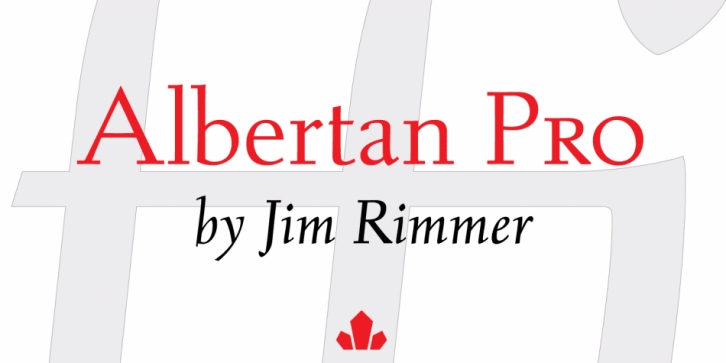
Albertan Pro is a serif and display serif font family. This typeface has fourteen styles and was published by Canada Type.
Albertan was the first Jim Rimmer typeface to make the transition from metal to digital. And for very good reason. When the first roman face was cut at 16 pt. in 1982, it was intended for use in hand-setting limited edition books at Jim’s own Pie Tree Press, but it immediately perked the ears of text typography connoisseurs in the printing industry. It was hard to resist Jim’s expertly balanced approach at transforming the traditional roman model by infusing many transitional traits into the forms without sacrificing the integrity of the calligraphic influence or the functionality of the overall setting. Not to mention only Jim Rimmer could have made those almost-slab serifs work in such a face. A first post-Baskerville-post-Joanna, if you will.
A very attractive italic with a surprising slight incline followed in 1985, and the rest was history. Albertan became a Canadian text classic. Though Jim kept producing additional material (small caps and light fonts in the 1990s, bold fonts in the mid 2000s) to expand Albertan into a cohesive family, he became too busy with his other typefaces and press work, and the shape of the family remained in questionable limbo until Jim’s death in 2010.
In the summer of 2012, after the repatriation of Jim’s typefaces, the Canada Type designers set out to turn Albertan into the kind of family Jim would have been proud of, so they spent over seven months meticulously correcting and remastering the Albertan fonts, then expanding the family with new weights and tremendous glyph sets. This new Albertan Pro family is 14 fonts, each containing over 670 glyphs. Six formidable weights and an inline set, along with their true italic counterparts, are suitable to accommodate an enormous variety of text and display applications. Advanced typography features throughout all fonts include small caps, comprehensive ligature sets, stylistic alternates, six kinds of figures, automatic fractions, ordinals, case-sensitive forms, extended Latin language support and all-encompassing class-based kerning.